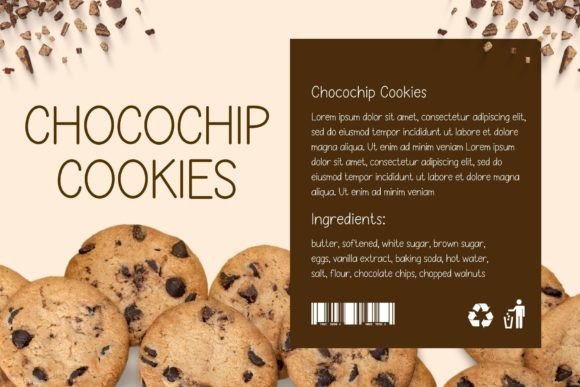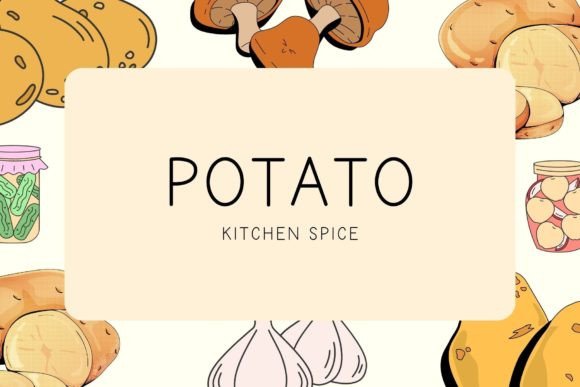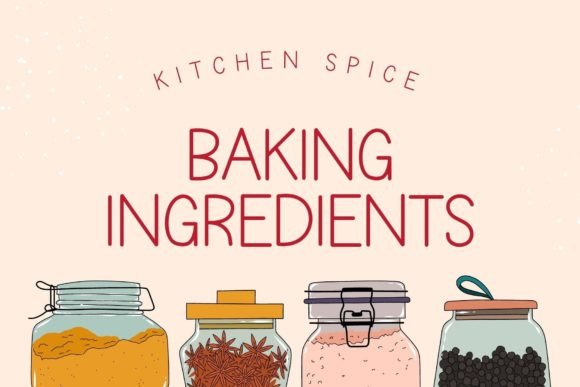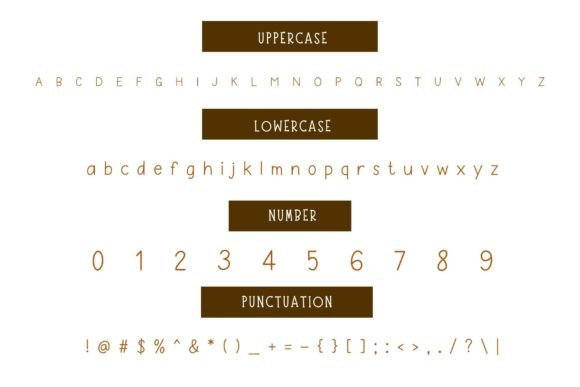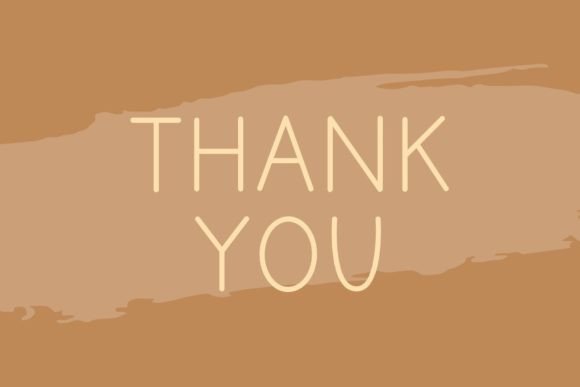
Crispy Sanwish Font: The Perfect Addition to Your Design Projects
Are you looking for a font that embodies playfulness and authenticity? Look no further than Crispy Sanwish, a cute handwritten font that’s perfect for a wide range of design projects. In this article, we’ll explore the features and benefits of Crispy Sanwish, and show you how to make the most of this versatile font.
What is Crispy Sanwish?
Crispy Sanwish is a unique and charming handwritten font that’s designed to add a touch of personality to your designs. Its playful and authentic style makes it perfect for a variety of projects, from blog posts and logos to branding, ads, invitations, greeting cards, planners, photo albums, decorations, and more.
Key Features of Crispy Sanwish
• Playful and Authentic Style: Crispy Sanwish has a distinctive handwritten style that’s both playful and authentic. Its unique character set and carefully crafted letterforms make it perfect for adding a personal touch to your designs.
• Versatile: Crispy Sanwish is a versatile font that can be used for a wide range of design projects. Whether you’re creating a blog post, logo, or social media graphic, this font is sure to make your design stand out.
• Easy to Read: Despite its playful style, Crispy Sanwish is easy to read and understand. This makes it perfect for body text, headings, and titles.
Benefits of Using Crispy Sanwish
So why should you choose Crispy Sanwish for your design projects? Here are just a few benefits of using this amazing font:
• Adds Personality to Your Designs: Crispy Sanwish adds a unique and playful touch to your designs, setting them apart from the competition.
• Perfect for Branding: With its authentic and handwritten style, Crispy Sanwish is perfect for branding projects, such as logos, business cards, and letterheads.
• Great for Creative Projects: Whether you’re creating a photo album, planner, or decoration, Crispy Sanwish is the perfect font to add a personal touch to your creative projects.
How to Use Crispy Sanwish
Using Crispy Sanwish is easy! Here are a few tips to get you started:
• Pair it with Other Fonts: Crispy Sanwish pairs well with other fonts, such as sans-serif fonts like Arial or Helvetica. Experiment with different font combinations to create a unique look.
• Use it for Headings and Titles: Crispy Sanwish is perfect for headings and titles, adding a playful touch to your design.
• Add it to Your Digital Designs: Crispy Sanwish can be used for both digital and print designs. Add it to your website, social media graphics, or digital invitations for a personal touch.
Here are a few tips and tricks for designers and crafters looking to make the most of Crispy Sanwish:
• Experiment with Different Colors: Crispy Sanwish looks great in a variety of colors. Experiment with different color combinations to find the perfect look for your design.
• Use it for DIY Projects: Crispy Sanwish is perfect for DIY projects, such as crafting, scrapbooking, and journaling.
• Mix and Match with Other Fonts: Don’t be afraid to mix and match Crispy Sanwish with other fonts to create a unique look.
Crispy Sanwish is a versatile and charming font that’s perfect for a wide range of design projects. Its playful and authentic style makes it a great addition to any design, adding a personal touch that sets it apart from the competition. Whether you’re a designer, crafter, or DIY enthusiast, Crispy Sanwish is sure to become a favorite font in your collection.